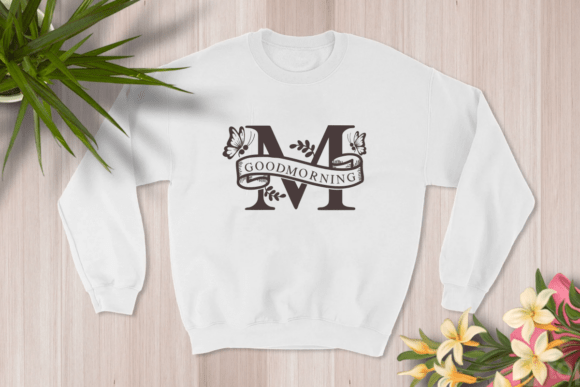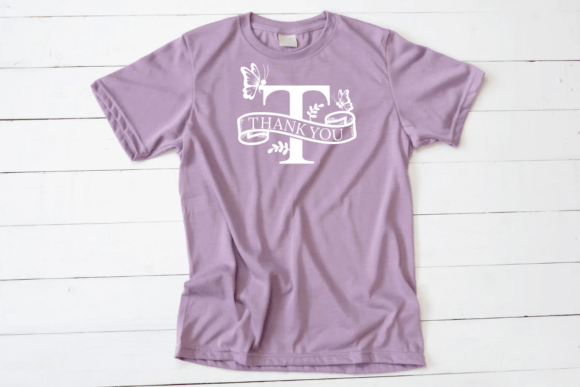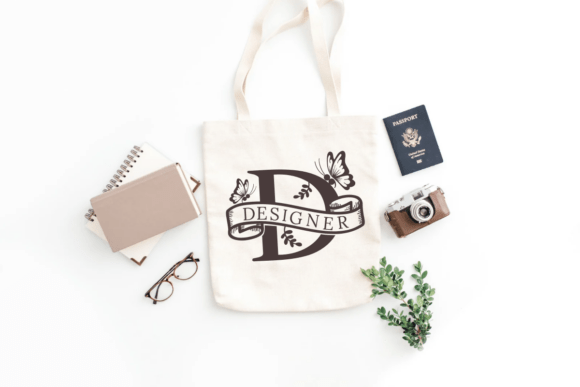
Butterfly Monogram Font
Butterfly monogram is a decorative font. You can use it for taking notes, writing a diary, or making greeting cards. However, you can still use it for other designs, such as banners, content, mugs, cards, shirts, stationery, social media posts, and more!